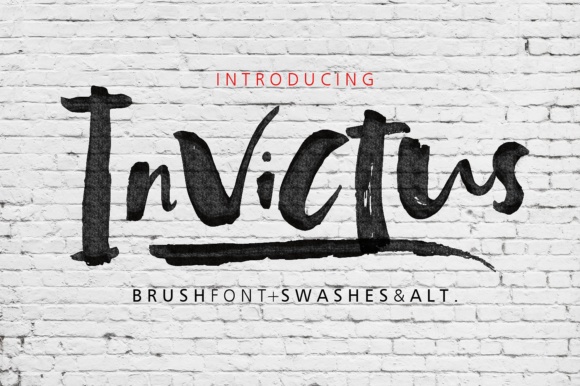
Prepare yourself to be captivated by the Invictus Font, a majestic hand-painted brush font that will leave you spellbound. Unleash your creativity and let your imagination run wild as you discover the endless possibilities that await you with this awe-inspiring font.
Journey through four distinct character sets and a world of swashes, each possessing a unique charm that will elevate your designs to new heights. Whether you choose to dance with the lowercase or command attention with the uppercase, Invictus will add an enchanting touch to every project.
Picture the allure of Invictus gracing your logos, name tags, handwritten quotes, product packaging, merchandise, social media, and greeting cards. Its versatility knows no bounds, captivating audiences and leaving a lasting impression.
With Invictus, you'll embark on a visual symphony, transforming ordinary words into works of art. Dive into a world of beauty, elegance, and limitless creativity. Join the legion of satisfied users who have discovered the power of Invictus and unlock the door to a world of design possibilities.